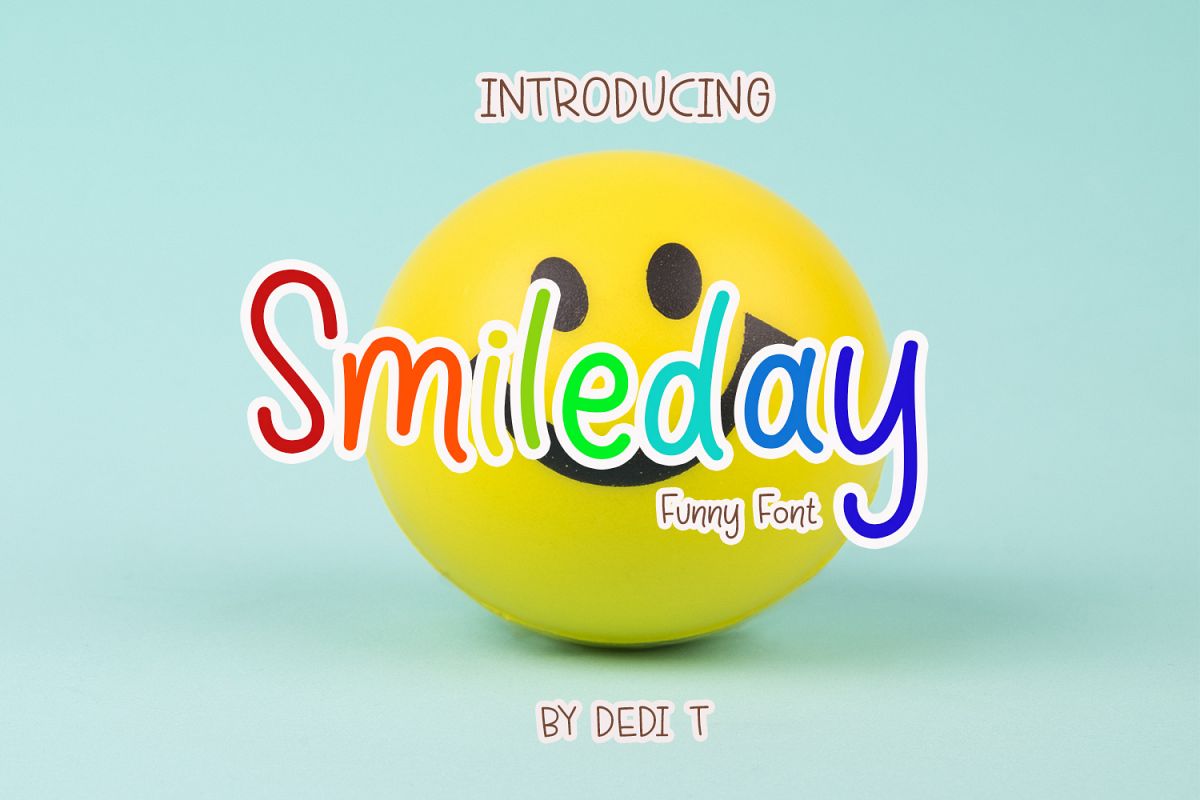
Smileday Fun Font
Smileday
Hello, Smileday
Font
is sans serif font. It brings joyful and happiness to all of us.
Inspired by handlettering with marker pen with bold and strong style. This font
is ideal for display, text, print, branding, birthday, birthday invitation, gift
card, with a set of optimal characters for your design in any layout. Happy
Design